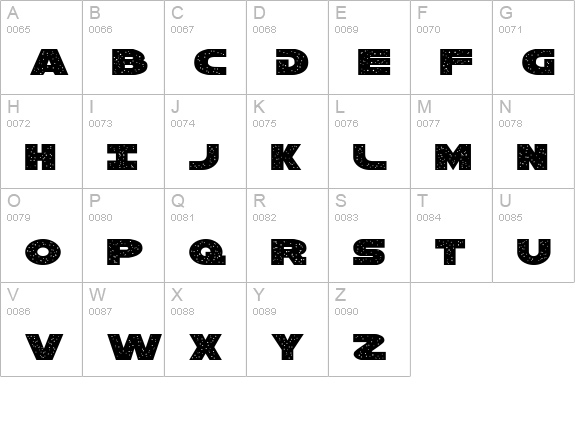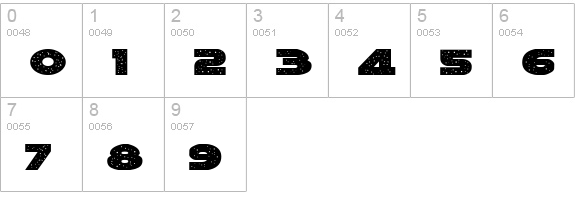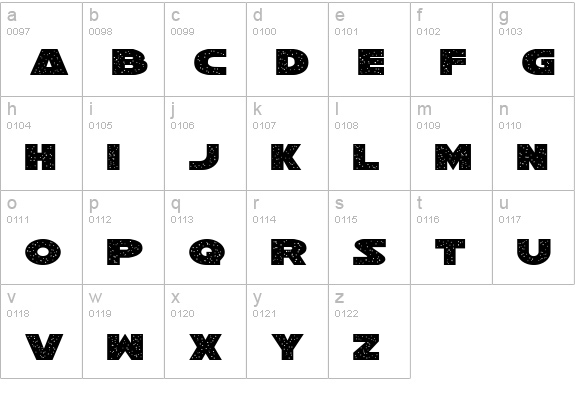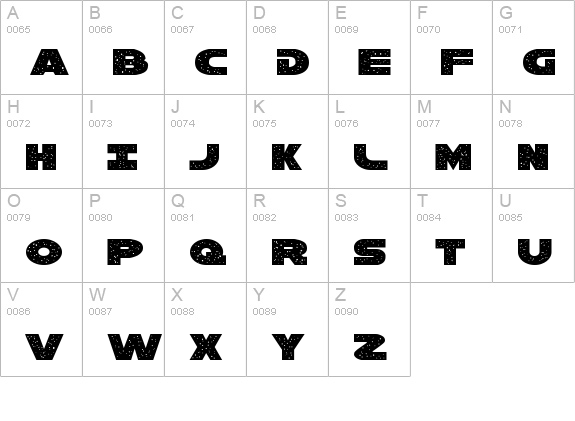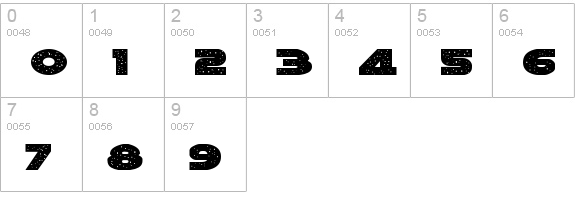
Galaxy 1 font is a stunning display typeface that exudes a sense of cosmic wonder and futuristic sophistication. With its sleek lines and modern aesthetic, this font is perfect for projects that require a touch of otherworldly charm. Whether you're designing a sci-fi poster, creating a space-themed website, or crafting a cutting-edge logo, Galaxy 1 font will elevate your work to new heights. The best part? Galaxy 1 font is available for free download at FontsMarket.com. Don't miss out on the opportunity to add this dynamic and eye-catching typeface to your design arsenal. Embrace the beauty of the cosmos with Galaxy 1 font and watch your creations shine brighter than the stars themselves.